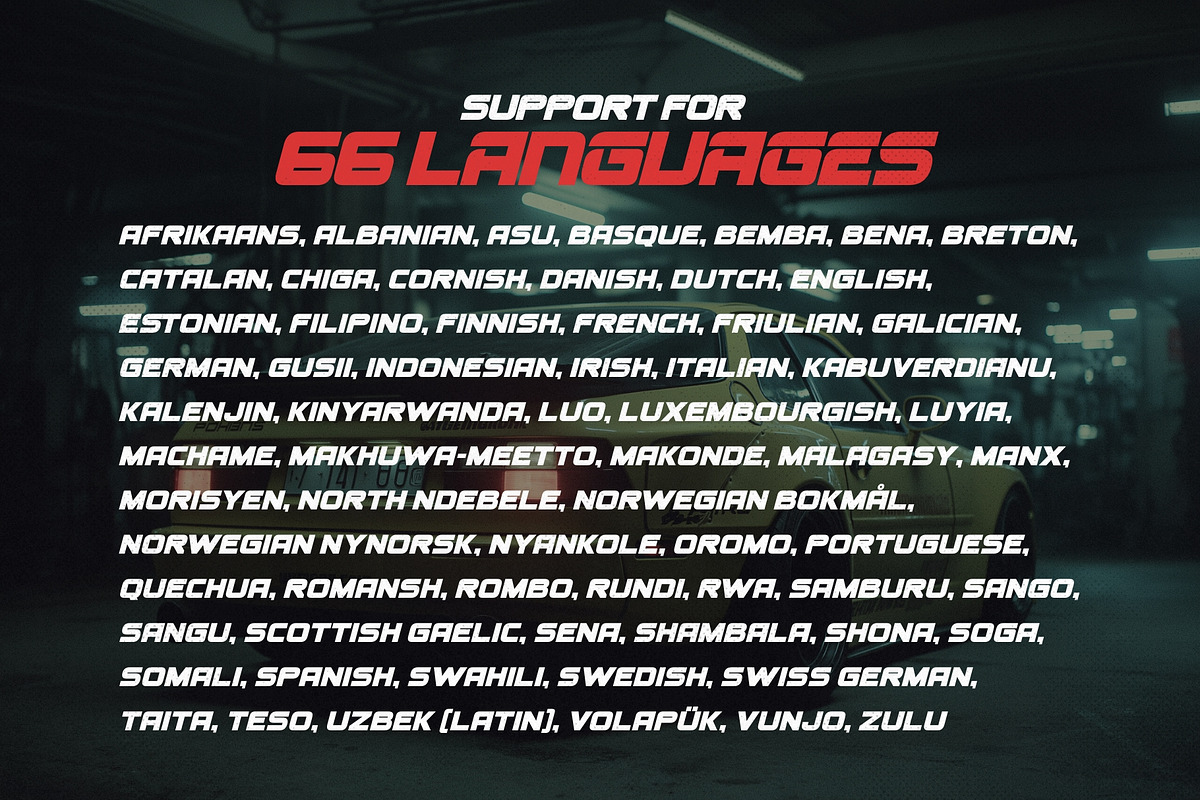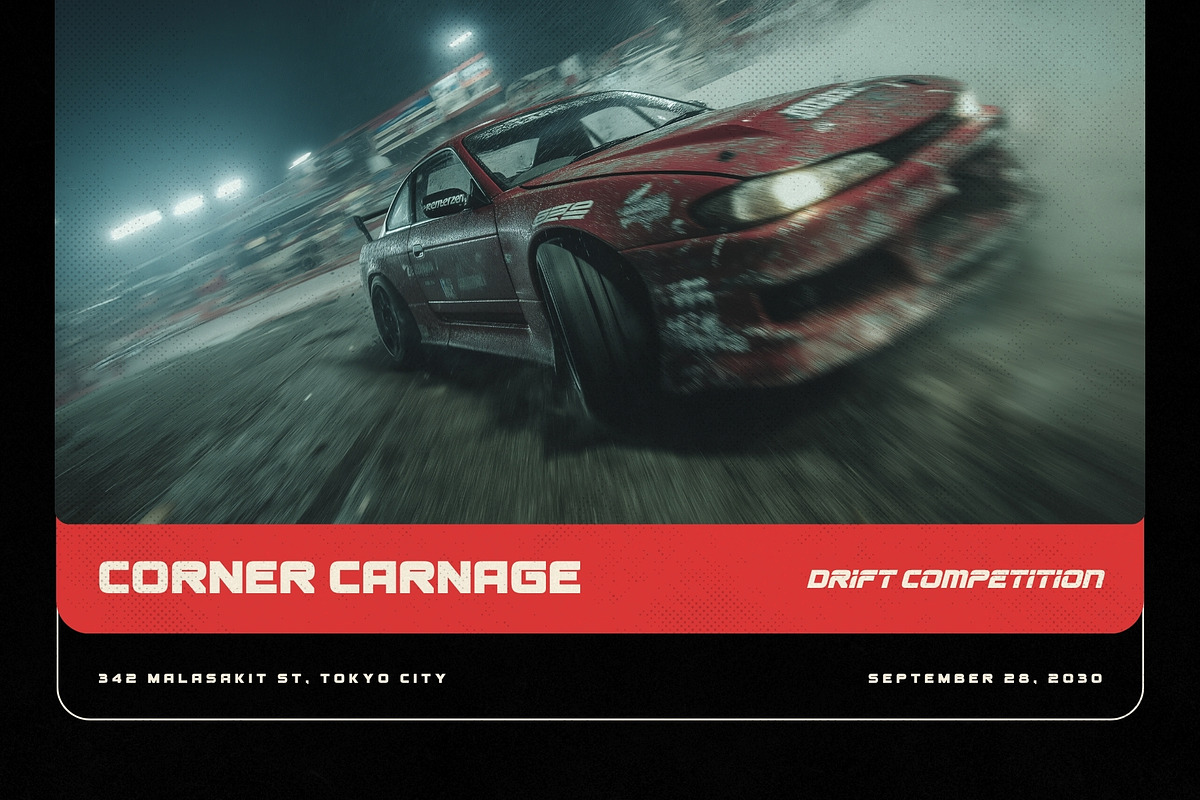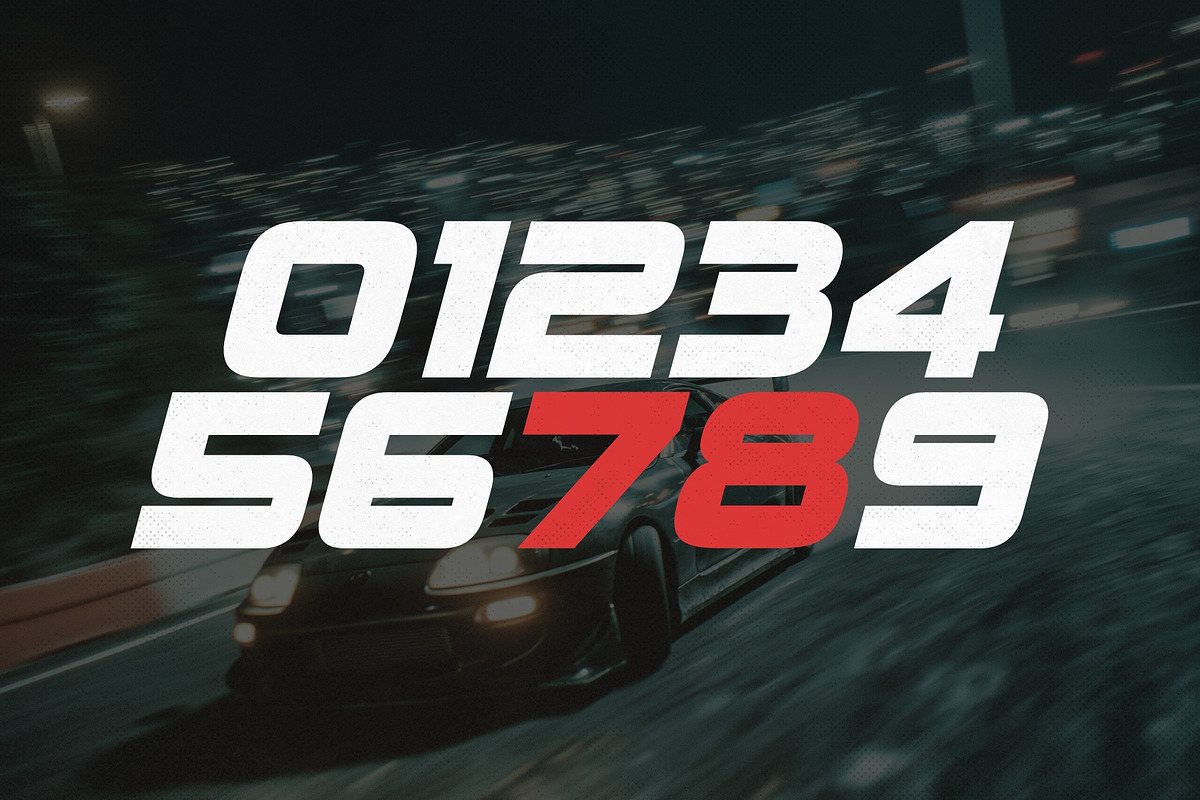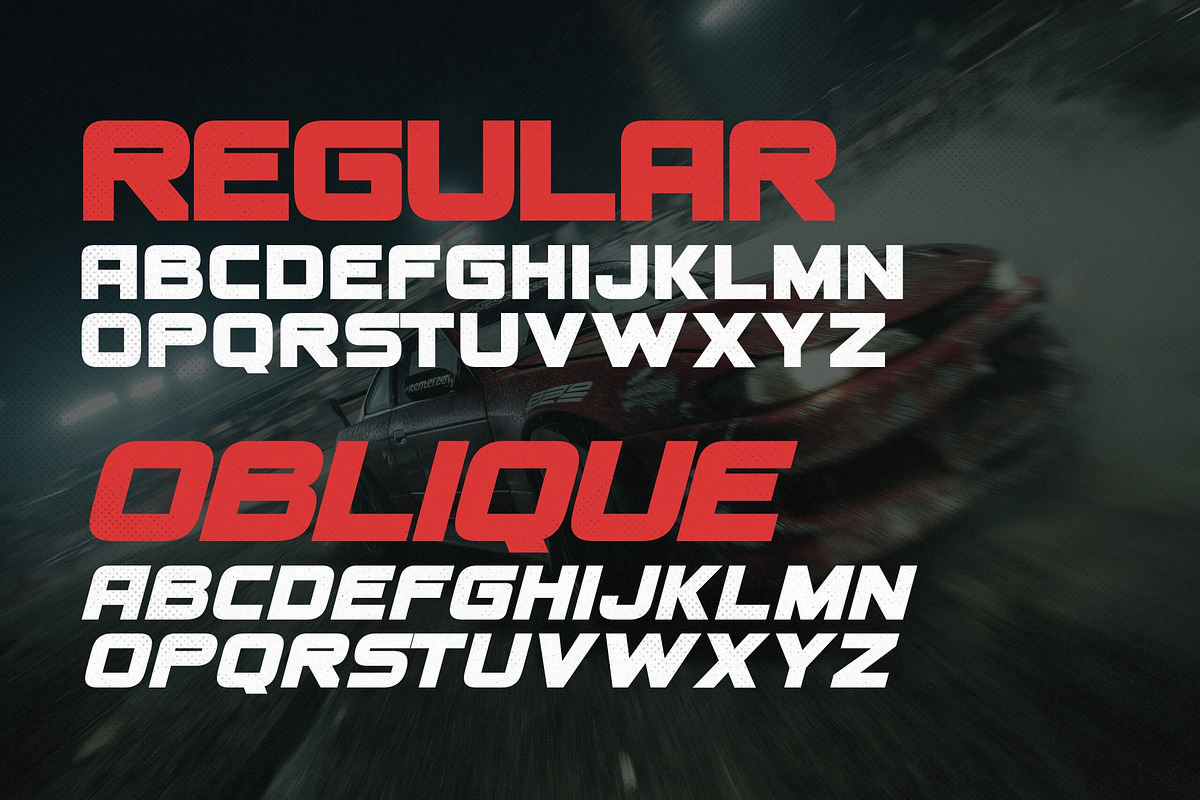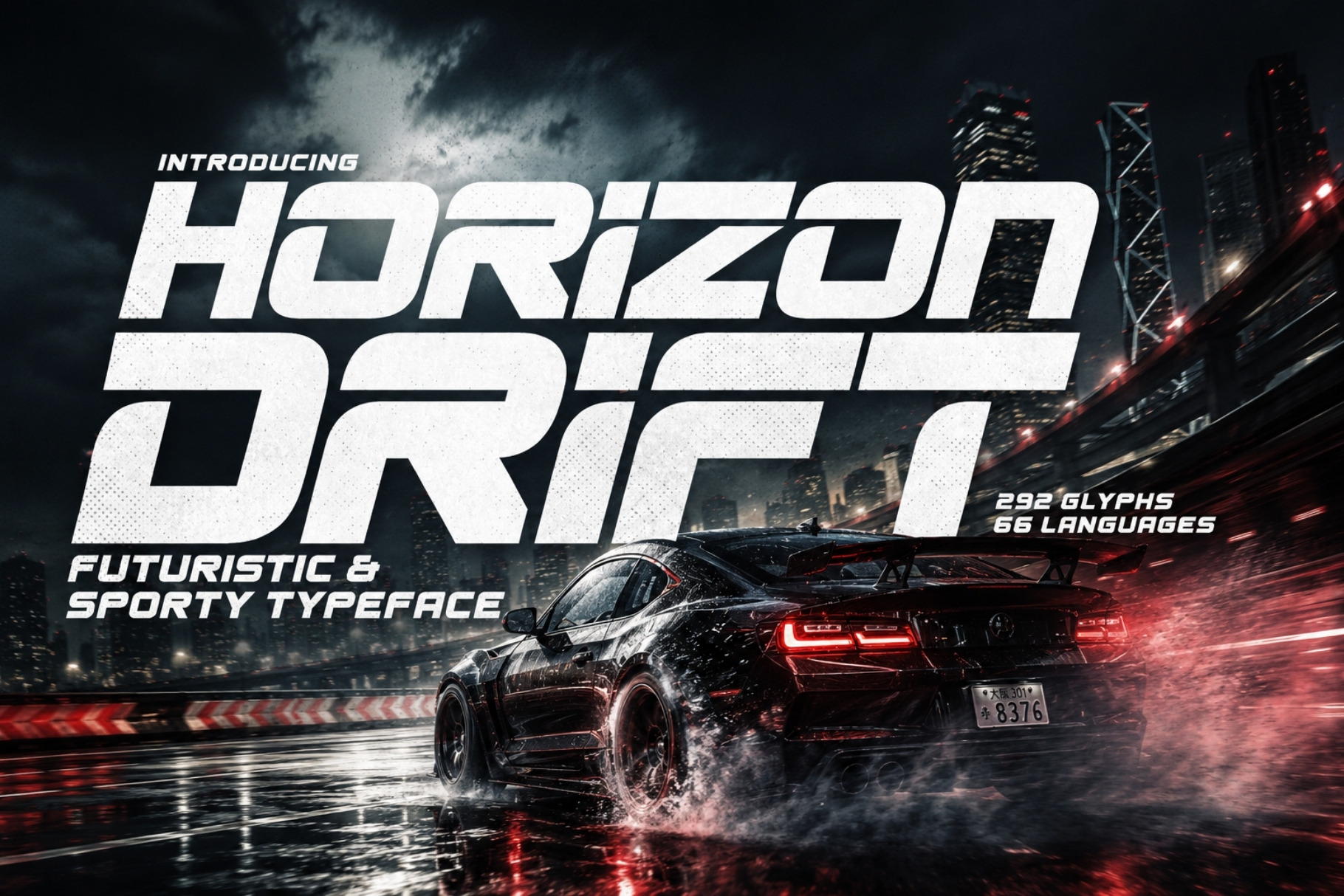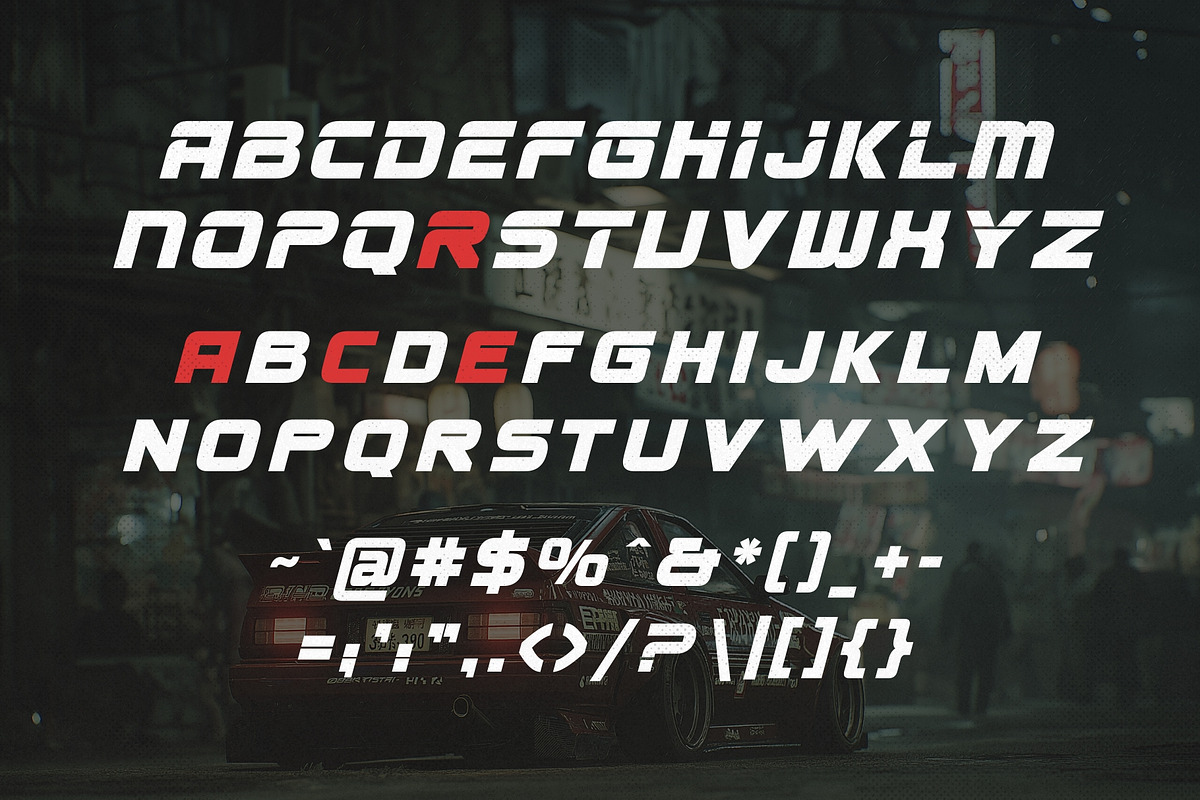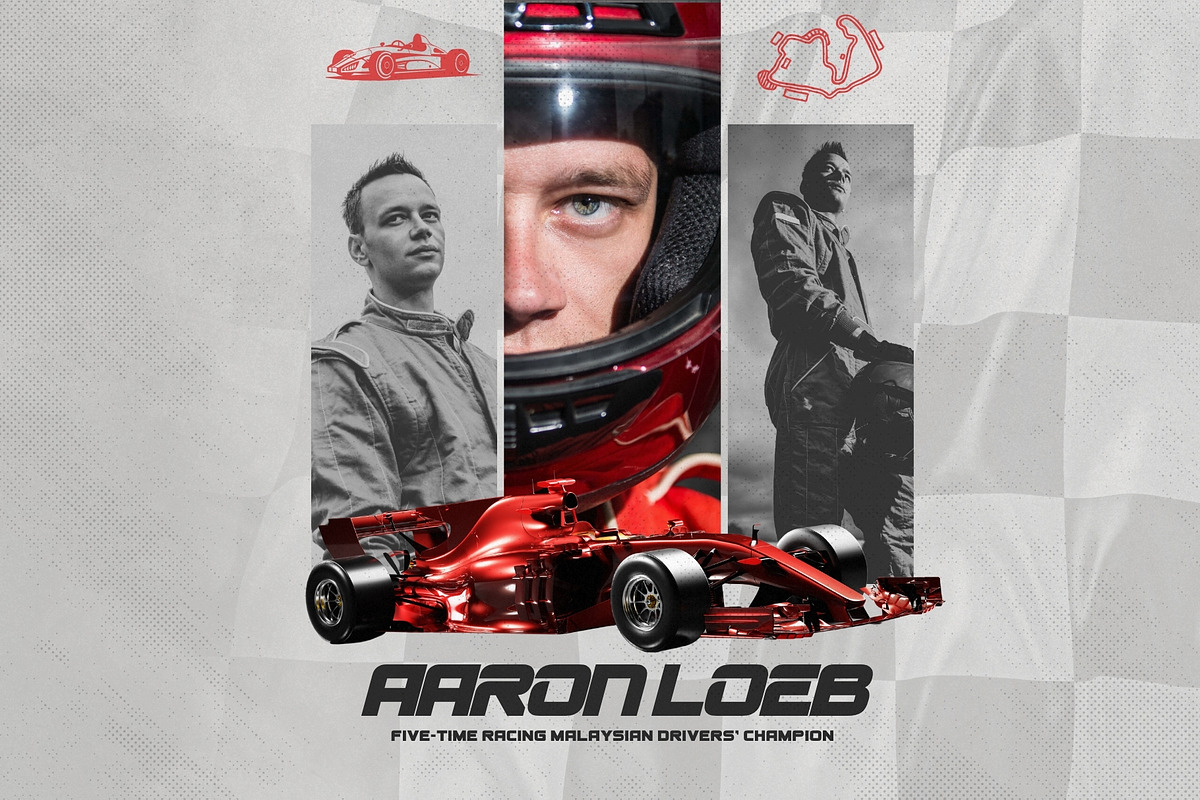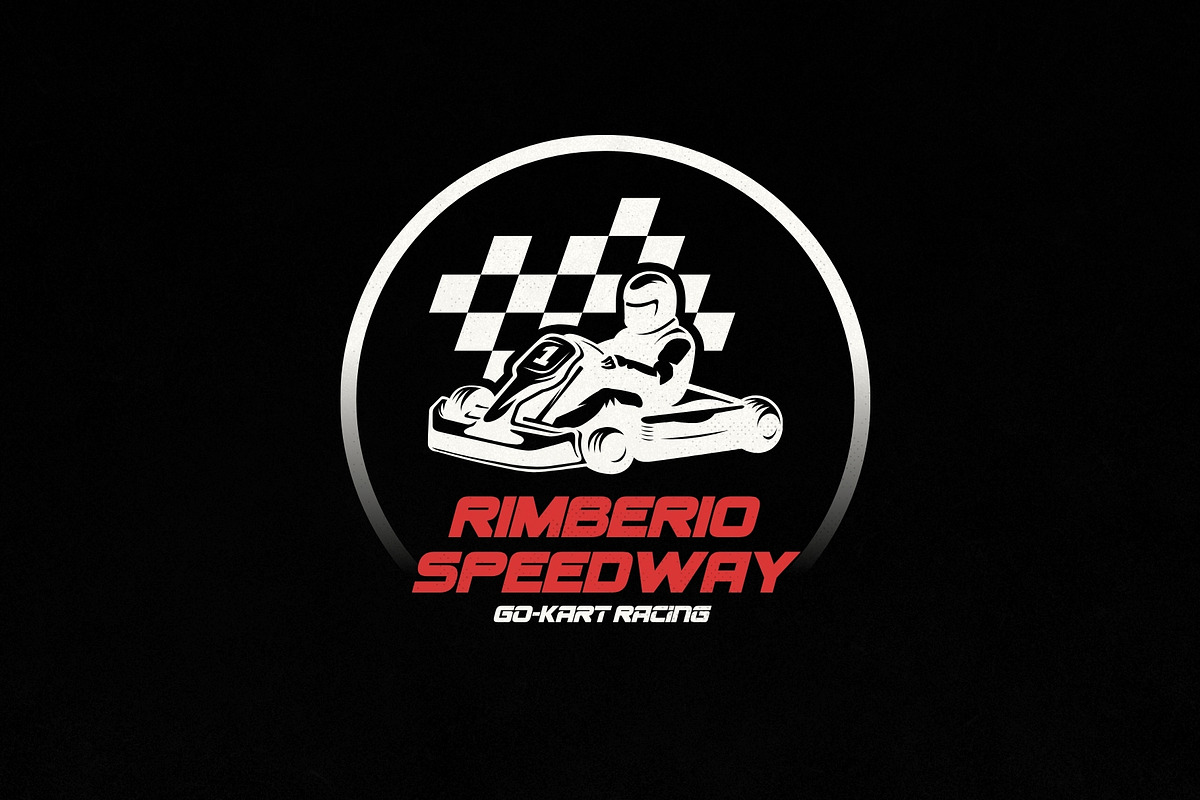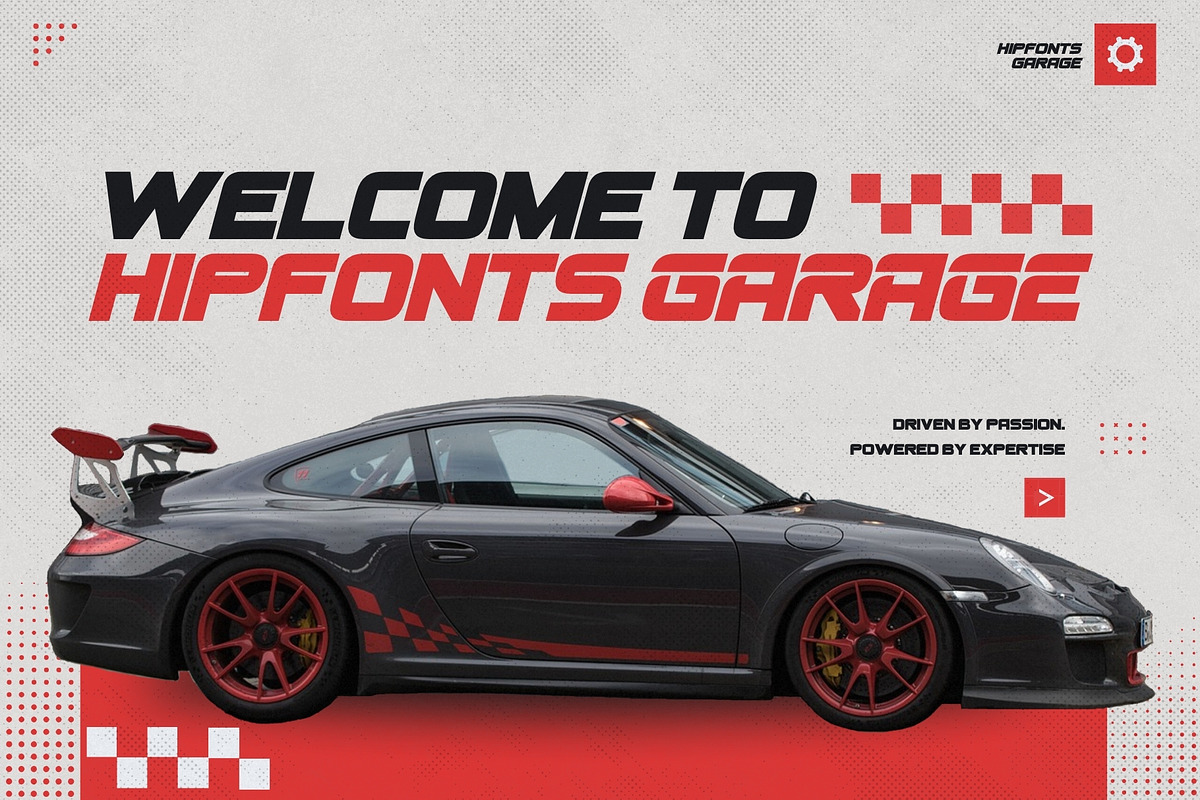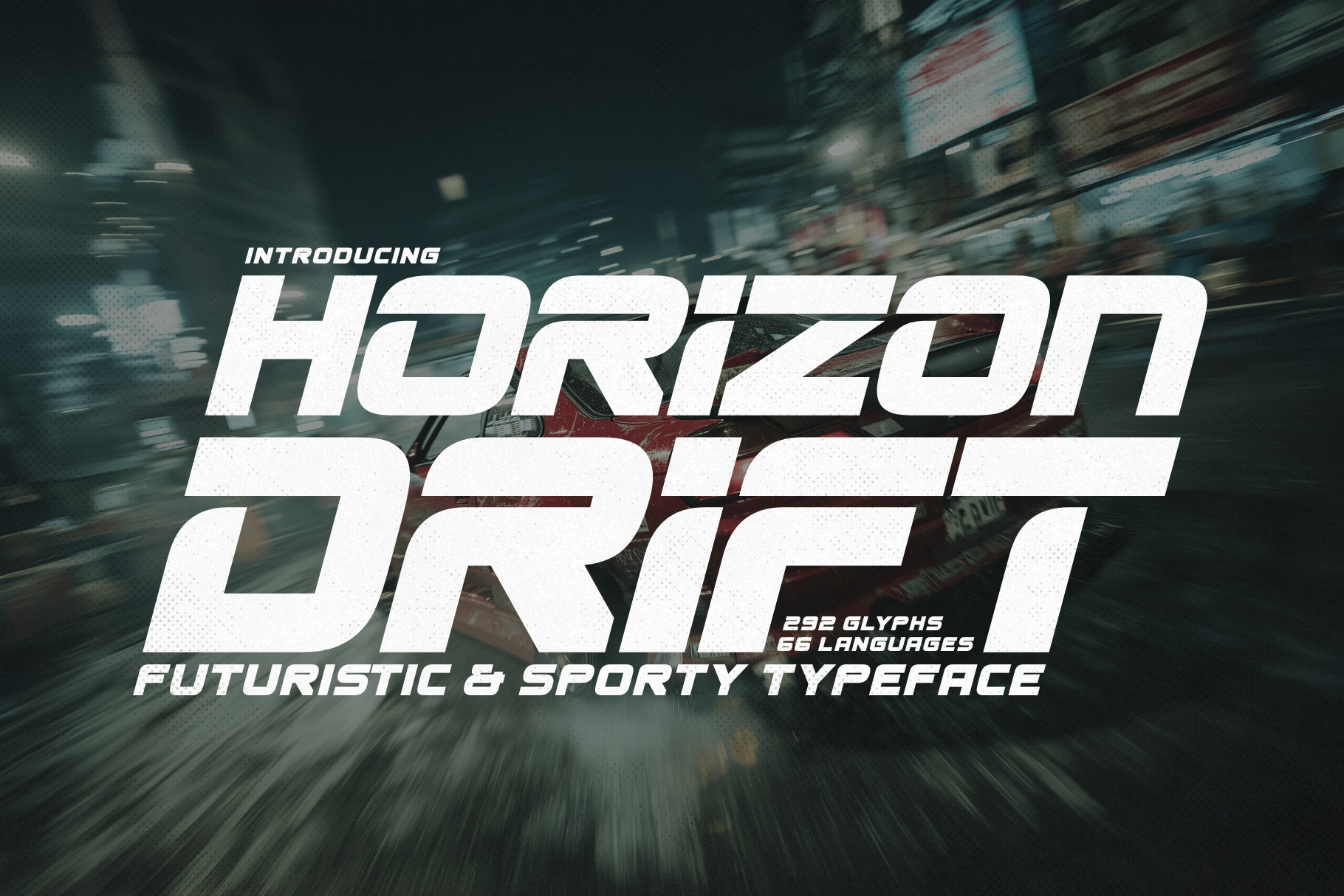
Horizon Drift - Sporty Race Font
Unleash speed, style, and sophistication with Horizon Drift, a modern typeface designed for the thrill of motion. Inspired by the high-octane world of racing, this bold, uppercase font embodies energy, precision, and futuristic elegance.
With two versatile versions — Regular and Oblique — Horizon Drift gives your designs the freedom to go straight or lean into motion, creating a dynamic visual impact. The uppercase letters are clean and commanding, perfect for strong headlines, logos, and branding, while the lowercase letters feature unique variations and unexpected shapes, adding a modern, sporty, and speedy edge to any layout.
Whether you’re crafting automotive branding, racing posters, futuristic designs, or bold editorial work, Horizon Drift is built to turn heads and ignite excitement. Push your typography to the fast lane and give your projects the speed, style, and attitude they deserve.